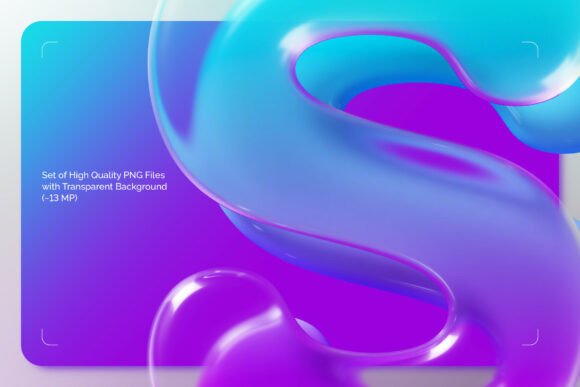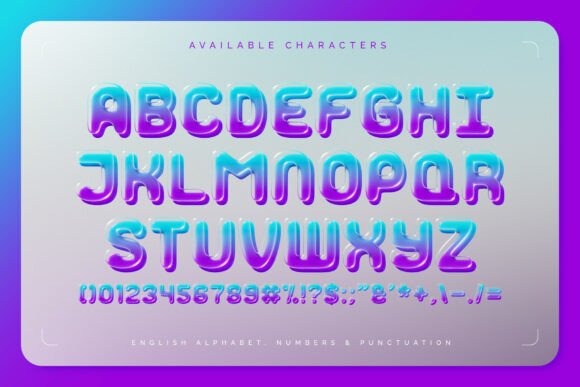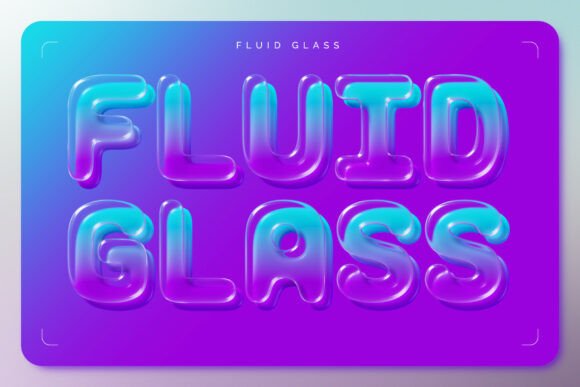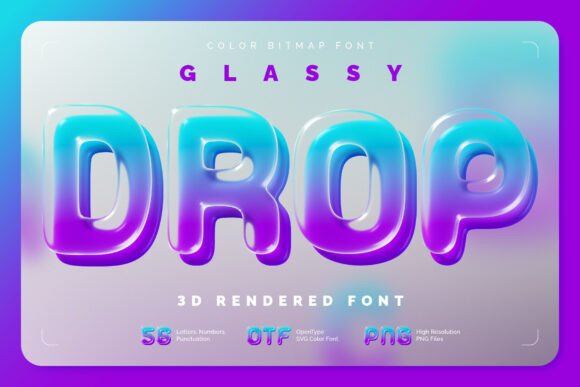
Introducing Glassydrop Font: A Revolutionary 3D Typeface
In the world of typography, innovation is always welcome. Designers and crafters are constantly on the lookout for fresh and unique fonts to elevate their creative projects. If you’re looking for a typeface that makes a statement, look no further than Glassydrop Font. This modern 3D font is a game-changer, boasting a captivating liquid aesthetic that’s sure to mesmerize your audience.
What is Glassydrop Font?
Glassy Drop is a cutting-edge, color bitmap OpenType-SVG font that showcases abstract, rounded glass letters set against a smooth, refractive gradient backdrop. The result is a transparent and dynamic visual experience that’s perfect for a wide range of design applications. Whether you’re working on a logo, branding project, or social media graphics, Glassydrop Font is sure to add a touch of sophistication and elegance.
Key Features of Glassydrop Font
- Unique Liquid Aesthetic: Glassydrop Font features a one-of-a-kind, 3D liquid aesthetic that’s sure to turn heads.
- OpenType-SVG Font: This innovative font technology allows for high-quality, scalable typography that’s compatible with most design applications.
- Abstract, Rounded Glass Letters: The font’s abstract, rounded glass letters add a touch of whimsy and creativity to any design project.
- Smooth, Refractive Gradient Backdrop: The font’s smooth, refractive gradient backdrop creates a sense of depth and dimensionality.
- English Language Support: Glassydrop Font supports the English language and basic punctuation.
Limitations and Compatibility
While Glassydrop Font is a powerful design tool, it’s essential to note that it has some limitations. Currently, the font supports only the English language and basic punctuation. Additionally, as a relatively new font technology, OpenType-SVG may have some limitations in certain design applications. However, Glassydrop Font is compatible with most popular design software, including:
Why Choose Glassydrop Font?
So, why should designers and crafters choose Glassydrop Font for their projects? Here are just a few compelling reasons:
- Unique Visual Experience: Glassydrop Font offers a truly unique visual experience that’s sure to captivate your audience.
- Ease of Use: Glassydrop Font is compatible with most popular design software, making it easy to integrate into your workflow.
- Innovative Technology: As an OpenType-SVG font, Glassydrop Font represents the latest innovation in font technology.
Tips for Using Glassydrop Font
To get the most out of Glassydrop Font, here are a few tips to keep in mind:
- Experiment with Colors: Glassydrop Font is a color bitmap font, so don’t be afraid to experiment with different colors and gradients.
- Play with Texture: The font’s smooth, refractive gradient backdrop can be combined with various textures to create a unique visual effect.
- Use in Combination with Other Fonts: Glassydrop Font can be paired with other fonts to create a striking contrast and add visual interest to your design.